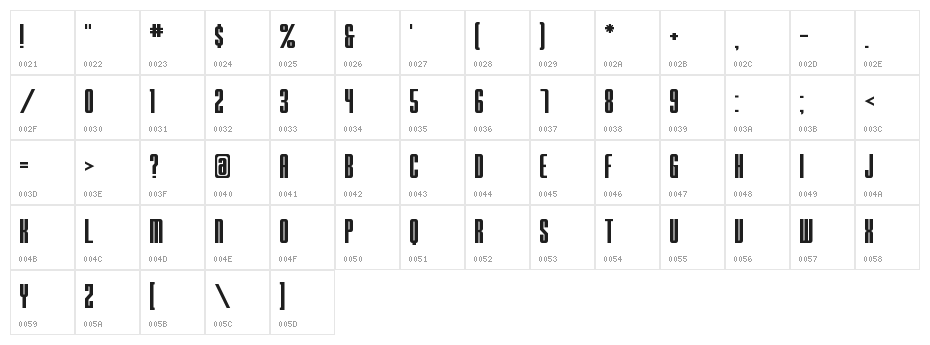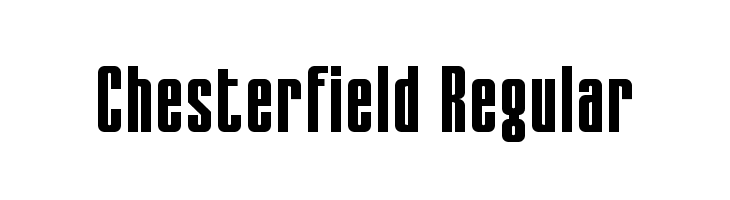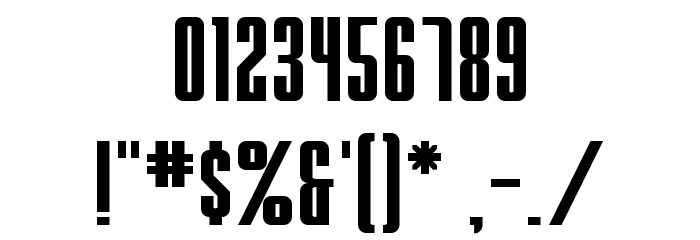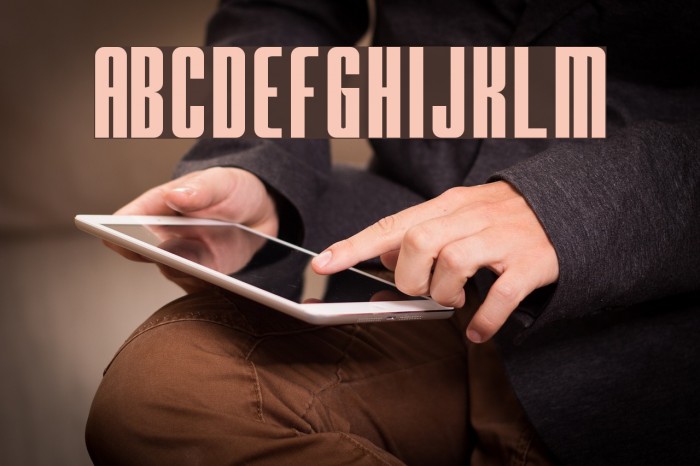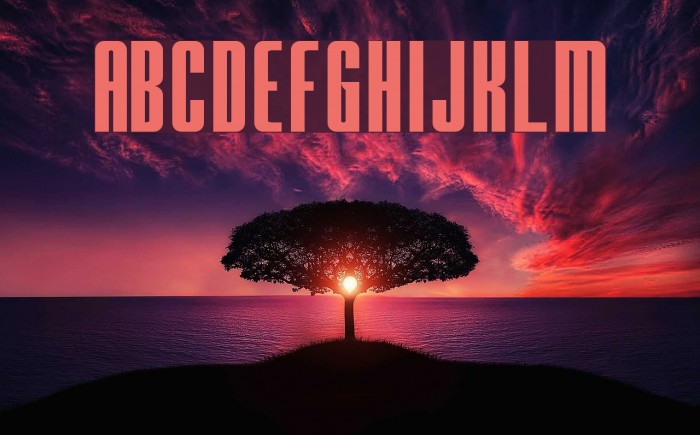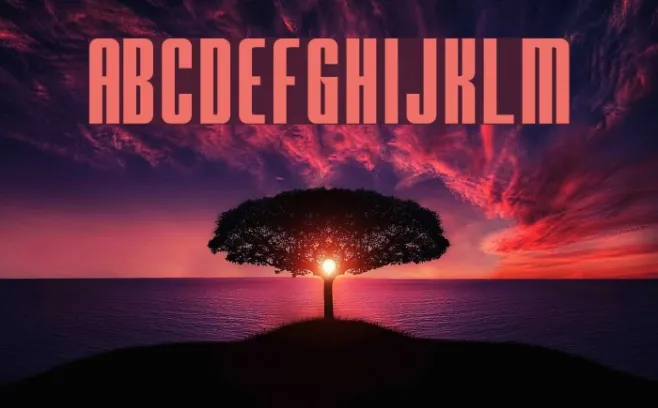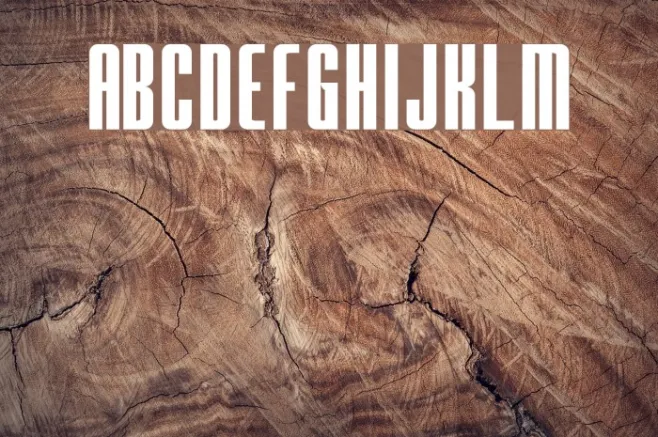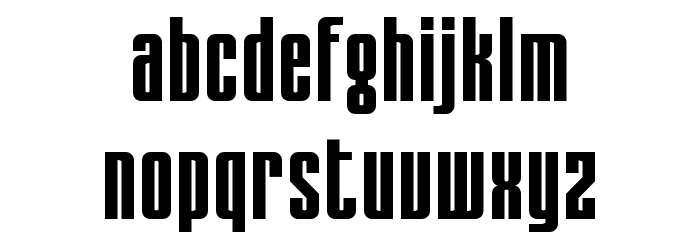
Chesterfield Regular Font
Chesterfield Regular Description
This font features a bold and striking design with a strong geometric influence. The characters are tall and narrow, creating a condensed appearance that is both modern and impactful. The uppercase letters are particularly prominent, with sharp angles and clean lines that convey a sense of strength and authority. The lowercase letters maintain the same geometric style, ensuring consistency across the typeface. Numbers and special characters are designed to match the overall aesthetic, making this font versatile for various applications. Its high contrast between thick and thin strokes adds to its visual appeal, making it suitable for attention-grabbing headlines and titles.